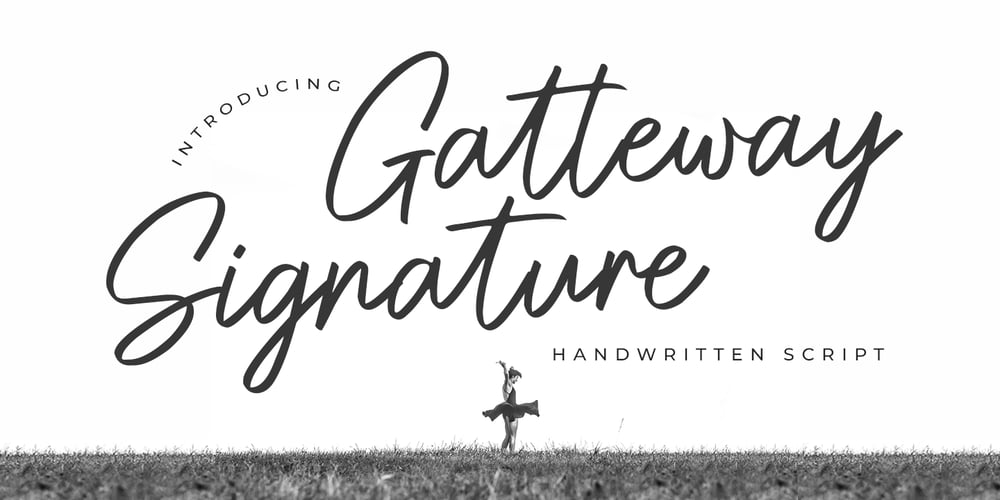
Gatteway Signature Font Family was designed by Jefri Dwi Alfatah and published by Bluestype Studio. Gatteway Signature contains 1 styles and family package options. Hello !This is our newest product font called Gatteway Signature. Gatteway Signature is a stunning script with a bold vibe. Get inspired by its cool feel.This font is suitable for use on photography, business cards, weddings, t-shirt designs, logos, magazines, quotes, fashion, watermarks, invitations, signatures.What’s include:- Gatteway SignatureThank you, and don’t forget to check out our other products.